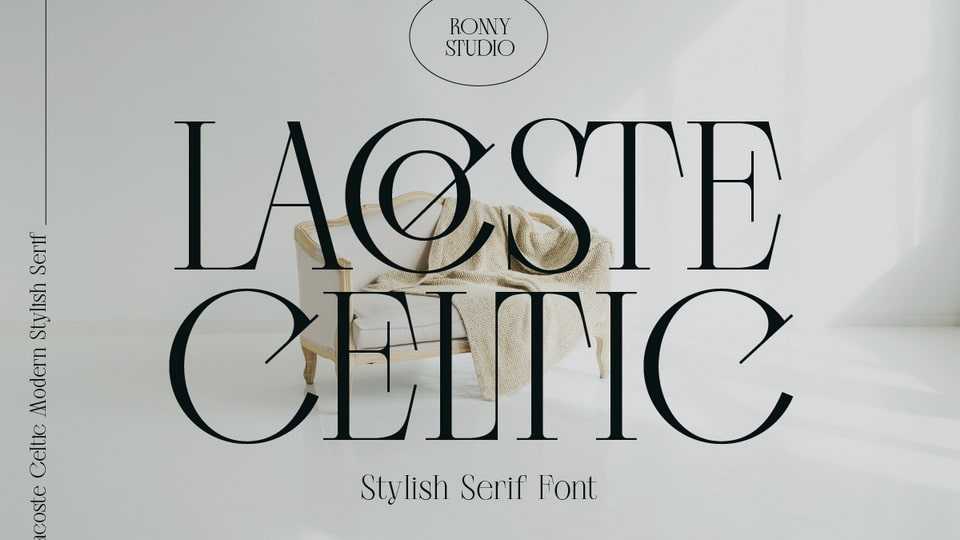
Download Lacoste Celtic font, a sophisticated ligature serif typeface. Lacoste Celtic font has been made carefully to make sure its premium quality and luxury feel.